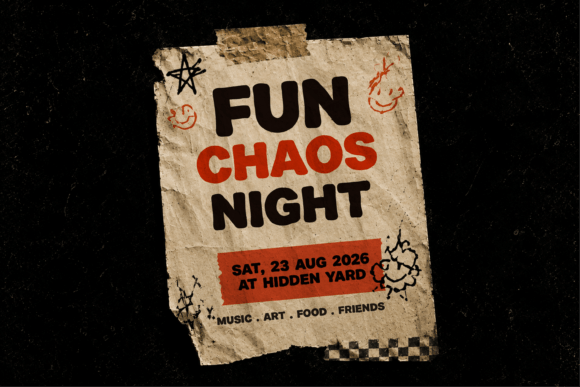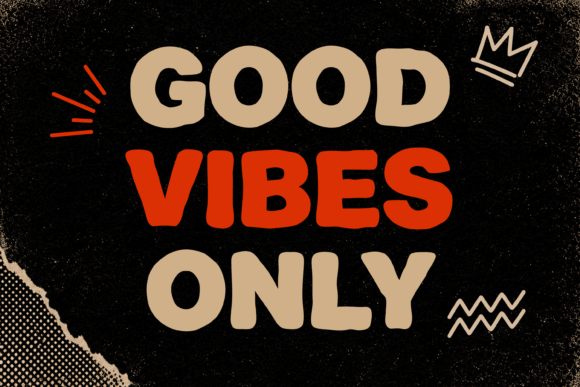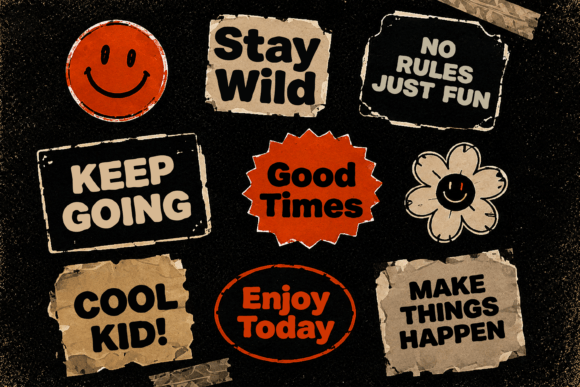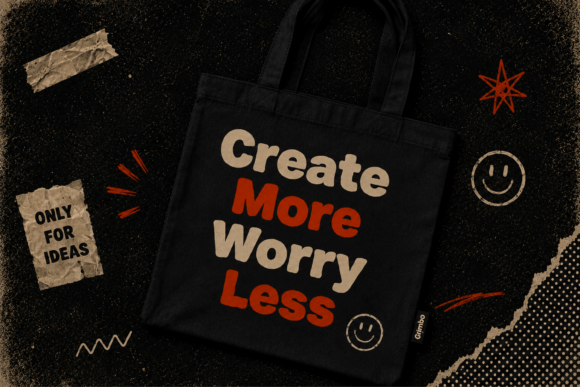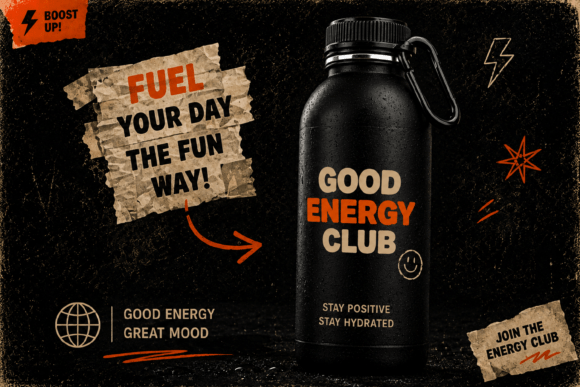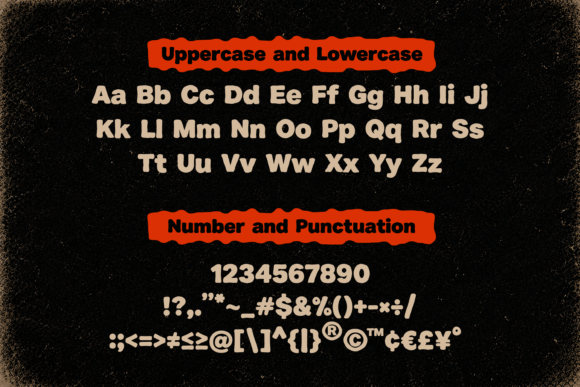
Glimbo Font: The Ultimate Display Font for Bold and Playful Designs
Are you looking for a font that can add a touch of fun and retro personality to your designs? Look no further than Glimbo Font! This bold and playful display font is perfect for creating eye-catching designs that exude energy, friendliness, and a modern vintage vibe. In this article, we’ll dive into the features and benefits of Glimbo Font, and explore how it can elevate your typography projects.
What is Glimbo Font?
Glimbo Font is a bold and playful display font that boasts a fun retro personality and chunky letterforms. Its thick curves and quirky shapes create a strong visual impact that makes every design feel energetic, friendly, and eye-catching. With its cheerful and modern vintage vibe, Glimbo Font is perfect for a wide range of design projects, from posters and branding to packaging, social media, kids’ projects, merchandise, logos, stickers, and creative headlines.
Key Features of Glimbo Font
- Bold and Playful: Glimbo Font features bold and chunky letterforms that are perfect for creating eye-catching designs.
- Retro Personality: With its quirky shapes and thick curves, Glimbo Font exudes a fun retro personality that’s sure to grab attention.
- Versatile: Glimbo Font is perfect for a wide range of design projects, from posters and branding to packaging, social media, kids’ projects, merchandise, logos, stickers, and creative headlines.
- Easy to Read: Despite its bold and chunky design, Glimbo Font is easy to read, making it perfect for use in a variety of contexts.
Benefits of Using Glimbo Font
So why should you choose Glimbo Font for your design projects? Here are just a few benefits of using this amazing display font:
- Adds Energy and Personality: Glimbo Font adds a touch of energy and personality to your designs, making them stand out from the crowd.
- Perfect for Branding: With its bold and playful design, Glimbo Font is perfect for creating memorable and eye-catching brand identities.
- Versatile: Glimbo Font can be used in a wide range of design projects, from posters and packaging to social media and merchandise.
- Easy to Use: Glimbo Font is easy to use and can be easily integrated into your design workflow.
Who is Glimbo Font for?
Glimbo Font is perfect for designers, crafters, and anyone looking to add a touch of fun and personality to their designs. Whether you’re a:
- Graphic Designer: Glimbo Font is perfect for creating eye-catching posters, branding, and packaging designs.
- Crafter: Glimbo Font is great for creating handmade cards, scrapbooking, and other craft projects.
- Social Media Manager: Glimbo Font is perfect for creating engaging social media graphics and posts.
- Kids’ Party Planner: Glimbo Font is great for creating fun and playful kids’ party decorations and invitations.
How to Use Glimbo Font
Using Glimbo Font is easy! Here are a few tips for getting the most out of this amazing display font:
- Use it as a Headline Font: Glimbo Font is perfect for use as a headline font, adding a touch of energy and personality to your designs.
- Pair it with Other Fonts: Glimbo Font pairs well with other fonts, making it easy to create visually appealing and engaging designs.
- Experiment with Colors: Glimbo Font looks great in a variety of colors, so don’t be afraid to experiment and find the perfect color scheme for your design.
In conclusion, Glimbo Font is a bold and playful display font that’s perfect for adding a touch of fun and retro personality to your designs. With its thick curves and quirky shapes, Glimbo Font creates a strong visual impact that makes every design feel energetic, friendly, and eye-catching. Whether you’re a designer, crafter, or social media manager, Glimbo Font is a great choice for any design project. So why wait? Give Glimbo Font a try today and see the difference it can make in your designs!